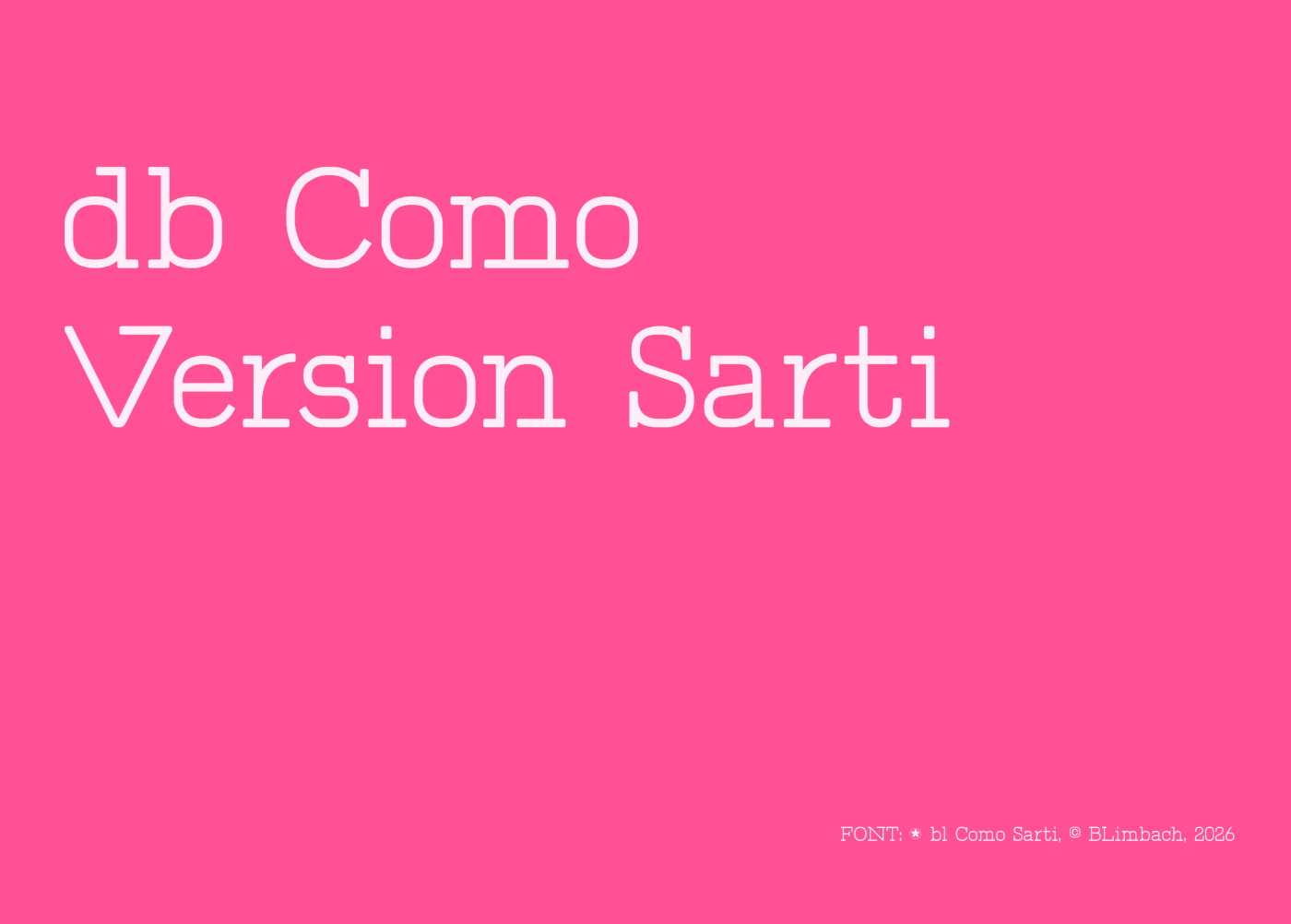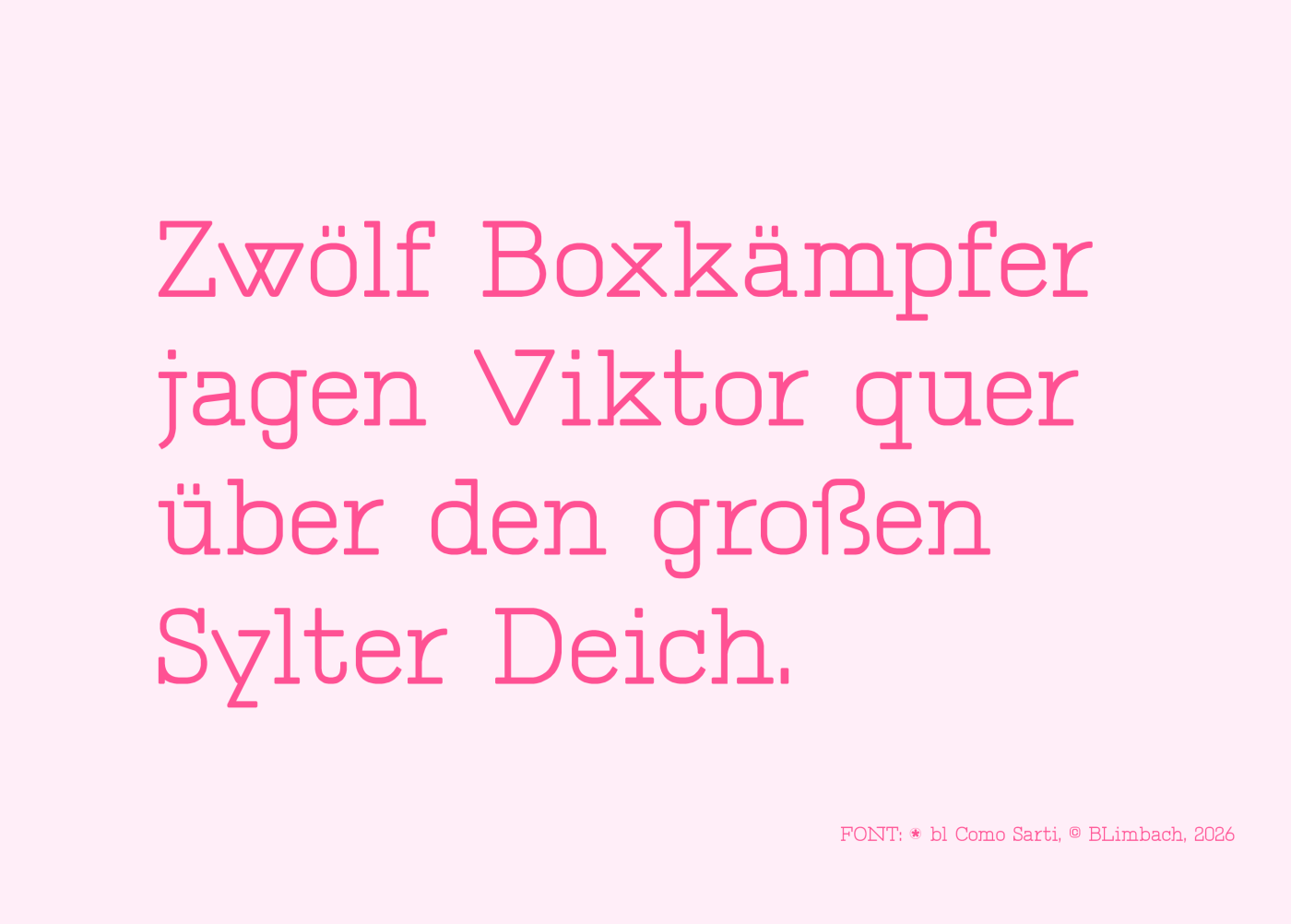
• Adapted from Como S(lab), designed in 2012 with completely revised shapes and a new style.
Pretty nice font. (You might want to take another look at ‛ as it looks like ‘)
@beate: This is absolutely brilliant. How did you build perfect curves while maintaining the same stroke width? Your font reminds me of Courier New, which I'm very fond of. I believe db Como Sarti represents a new Peak-Fontstruct, at least in technical terms. Well done. 10/10
@ Frodo: You're right. Back then (2005–06), I discovered Steffen Sauerteig's FF Typestar. It has some of the charm of old computer fonts, like Courier New and OCR-A♥︎/B—only much, much cooler and with more uses, such as logos, posters, branding, etc. I like its simplicity and its little touches of sophistication.
I think that with all the possibilities FS now offers, I was able to revisit it with enough distance (only 14 years ;)). I noticed that the glyphs weren’t positioned correctly (spacing/kerning), so I rearranged everything and simply started rethinking and redesigning the architecture of some of the glyphs. But the basics—the foundation (height, weight)—were right. That made everything pretty easy, and the pieces just sort of fell into place.
In fact, I’m thinking about focusing my design work on typography. I just get so much joy out of trying out new concepts and design languages. Typography has become a bit of a passion of mine over the last few years.
My db HeavyLight was one of the defining typography projects. It was chosen as the corporate font for a lovely little exhibition featuring black-and-white photographs.
Right now, I’m rediscovering some of my old Fonstruct fonts and would like to update them a bit.  I’m not quite done with db Como yet. Next up is… : )
Congrats on the TP, Maestra! Welcome back and I'm glad to see you here again! I've trying something similar with this font (but less elegant). 10/10.
How did you make the A with an angled crossbar?
the lowercase a, i suppose is what he refers to.